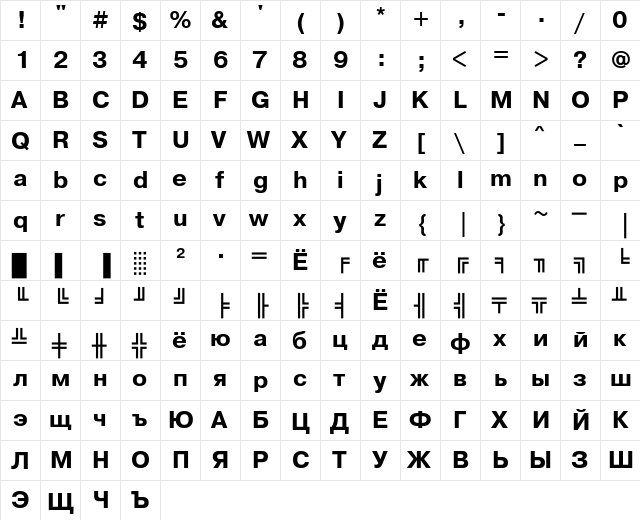
PragmaticaKOICTT Bold
Design Context for PragmaticaKOICTT Typeface
PragmaticaKOICTT takes a measured approach to typography — its balanced proportions and neutral character make it a reliable workhorse for both digital and print work. The heavy weight commands attention and anchors typographic hierarchies.